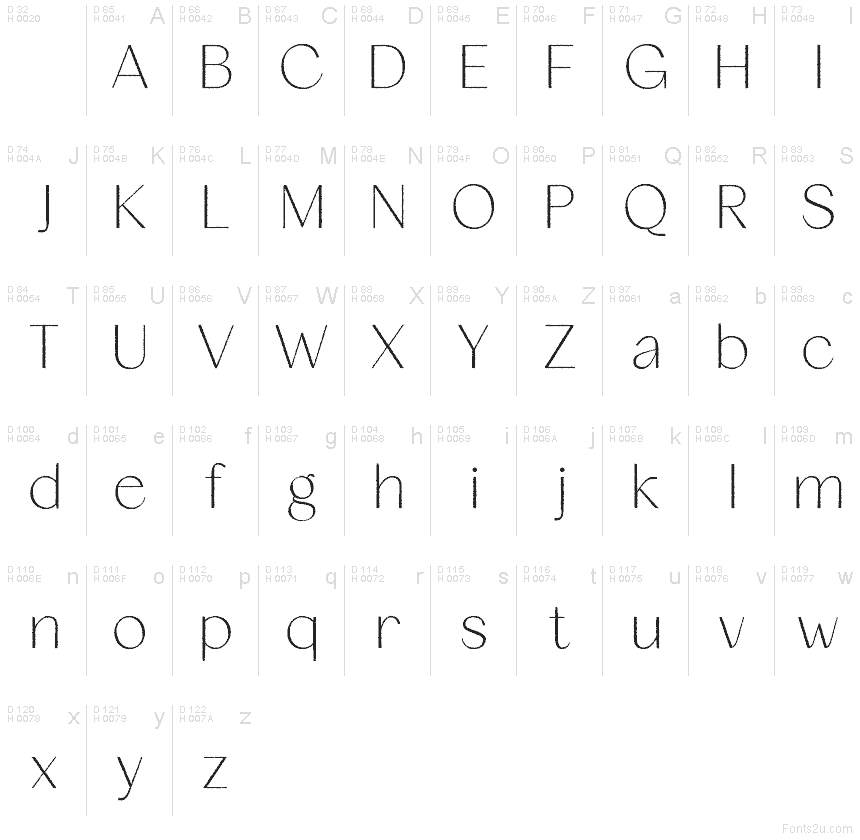
Quackey Rough Regular Demo
Quackey Rough font by Craft Supply Co. is a light sans serif font with elegantly flowing lines for refined looks. A modern choice for gentle, sophisticated, and naturally inspired typography projects that create a lasting impression from the first glance.
A simple addition to experiment with different designs, all sorts of business cards, letterheads, magazines, book covers digestion articles and health-related segments can benefit from it. Use it on medical brand designs, logos/labels of healing products as well as websites related to these spheres.